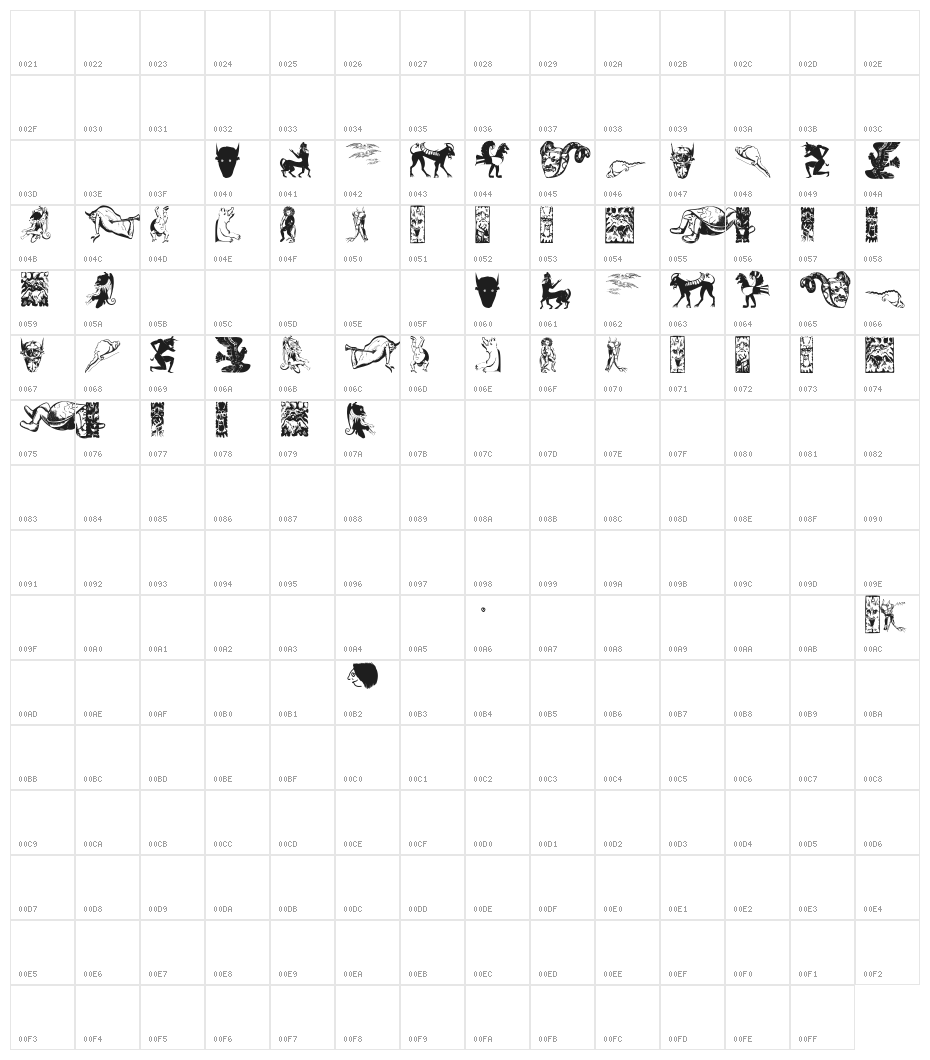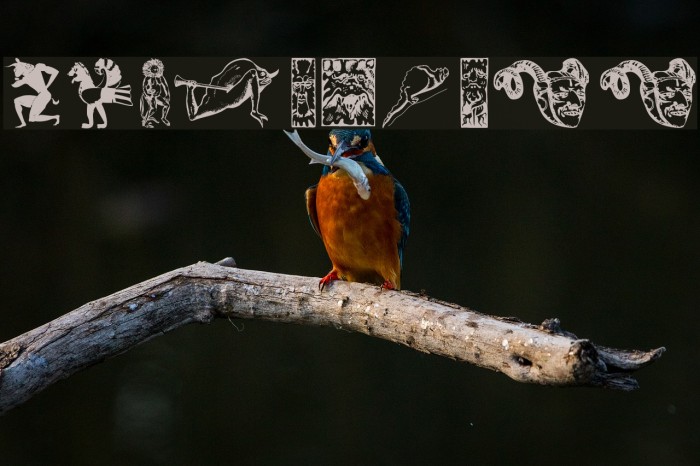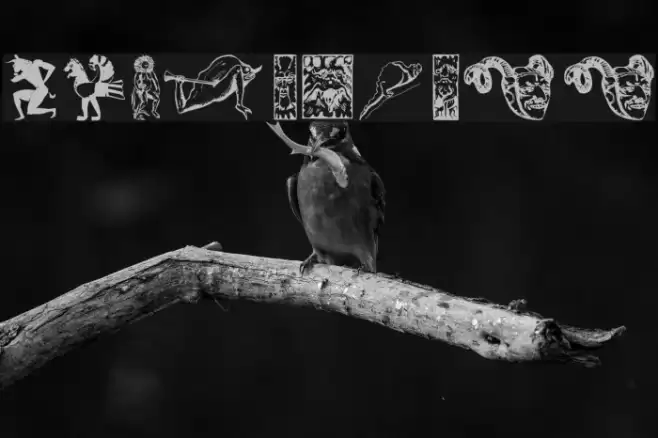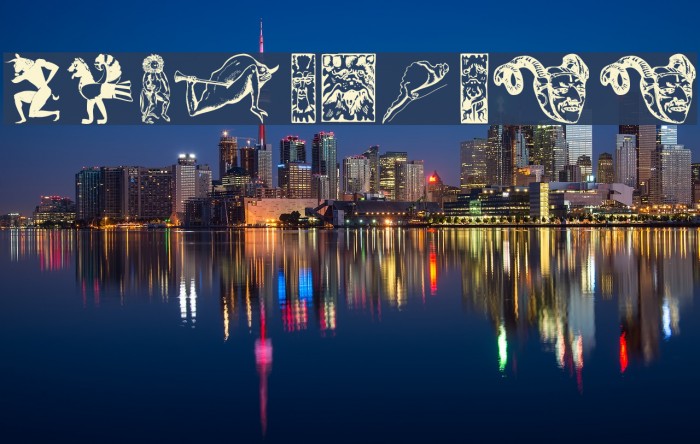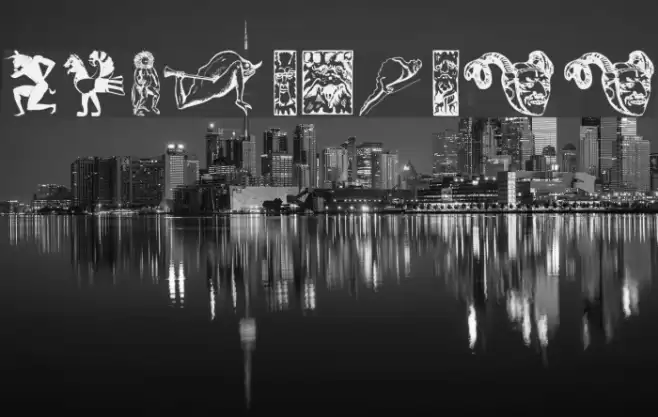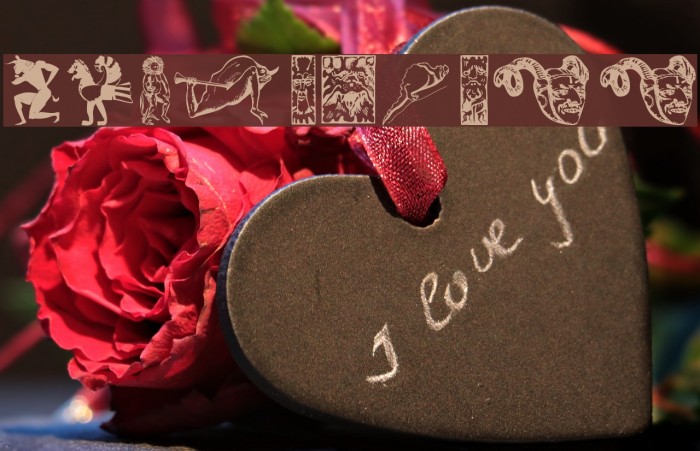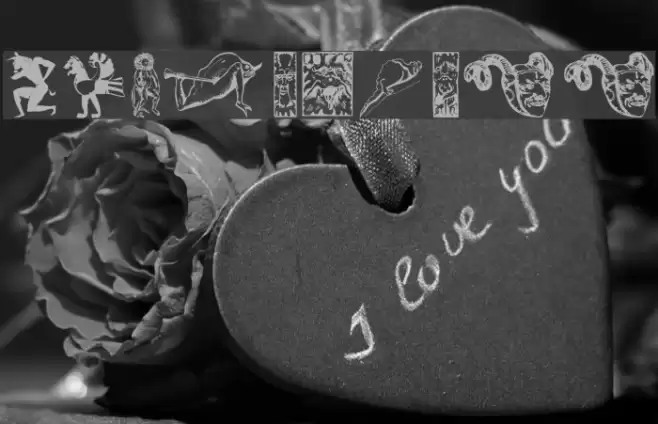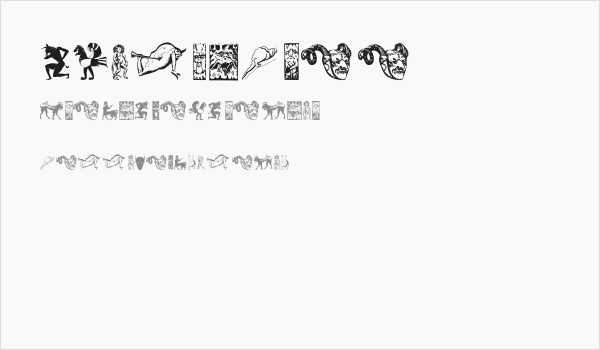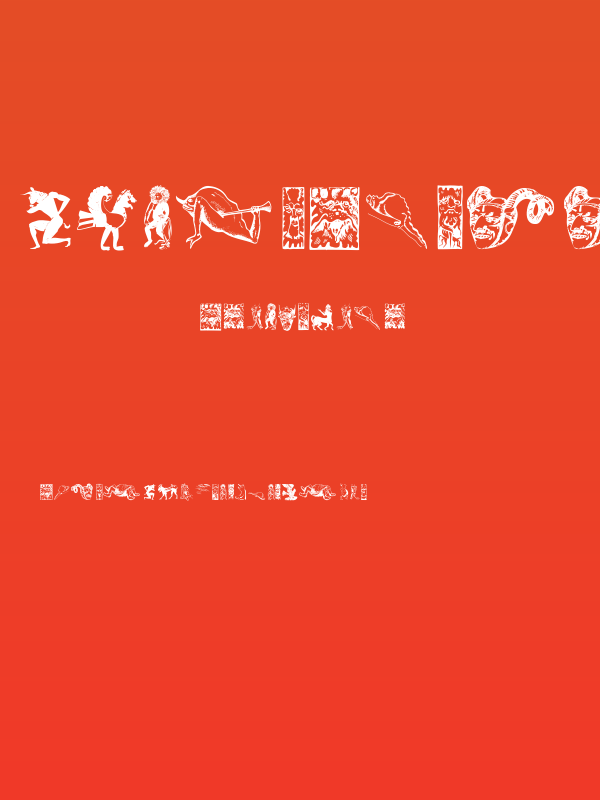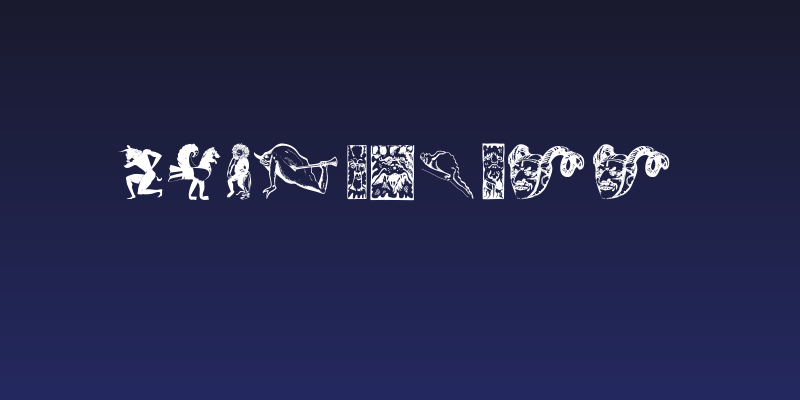
IdolsThree Font
IdolsThree Description
This collection features a series of intricate and imaginative illustrations, each representing a unique character or creature. The designs are highly detailed, showcasing a blend of mythical and fantastical elements. Each character is distinct, with elaborate features that suggest a narrative or story behind them. The artwork is bold and expressive, capturing attention with its dynamic forms and rich textures. These illustrations are perfect for projects that require a touch of whimsy and creativity, offering a visual experience that is both engaging and thought-provoking.
| Use Case | Logos, Illustrations, Decorative elements |
| Proposed Projects | Ideal for use in fantasy-themed publications, game design, storybooks, or as decorative elements in creative projects. |